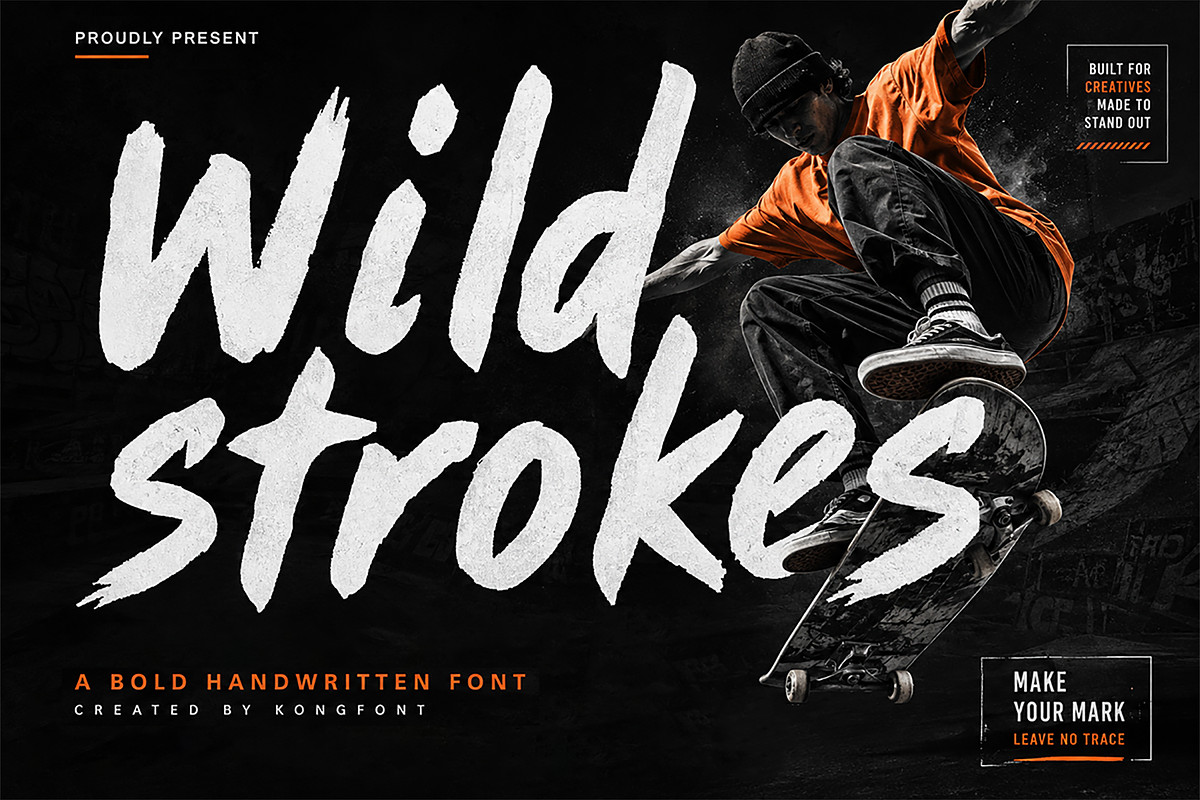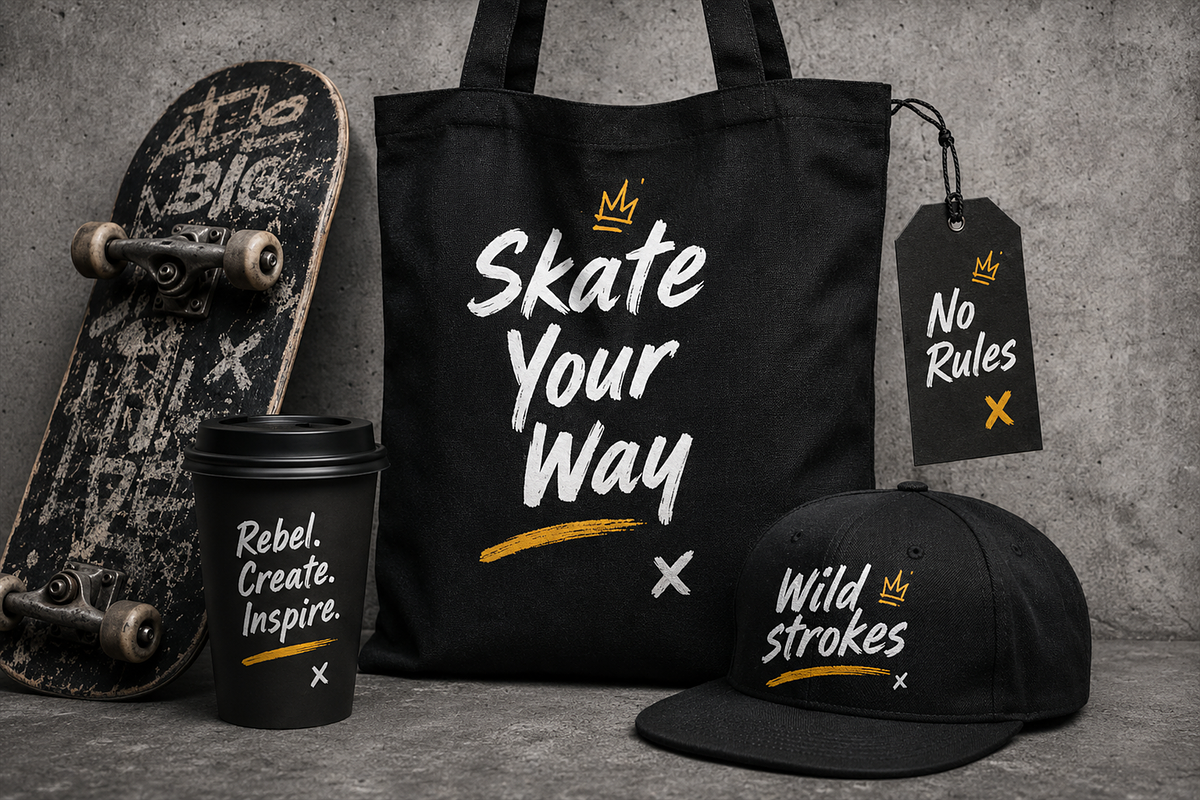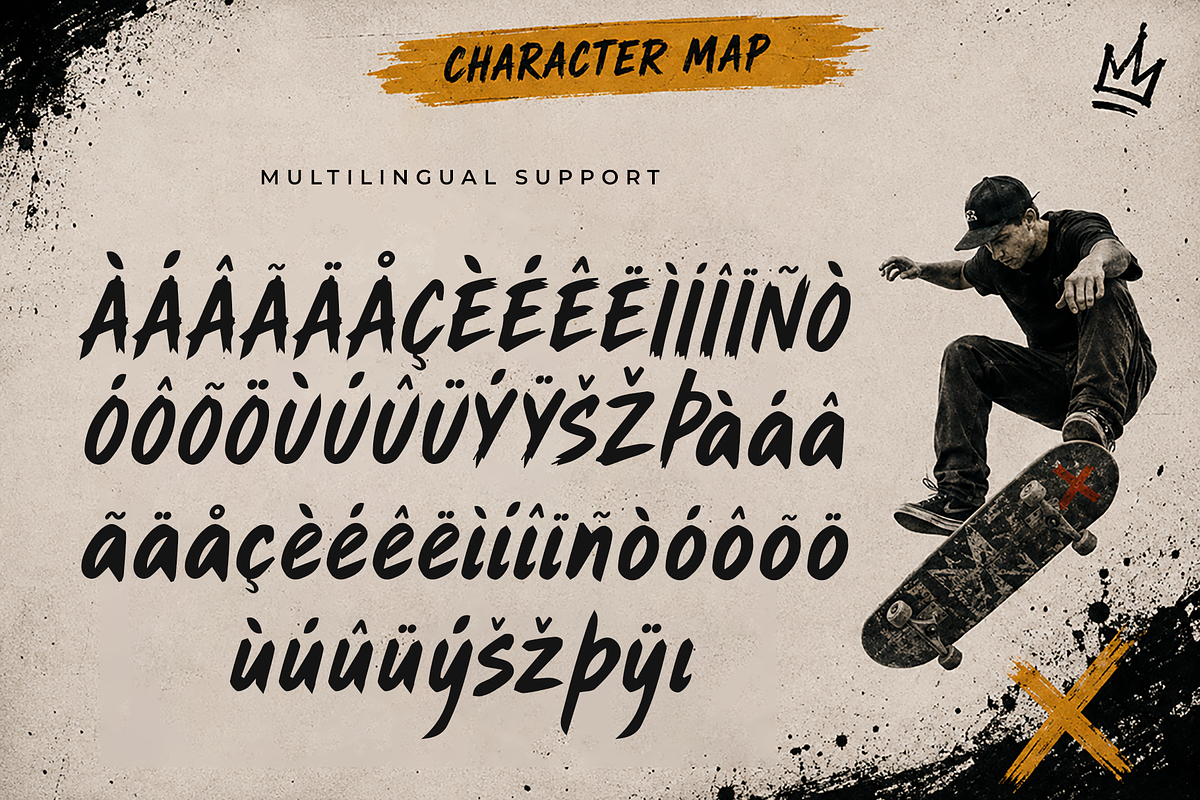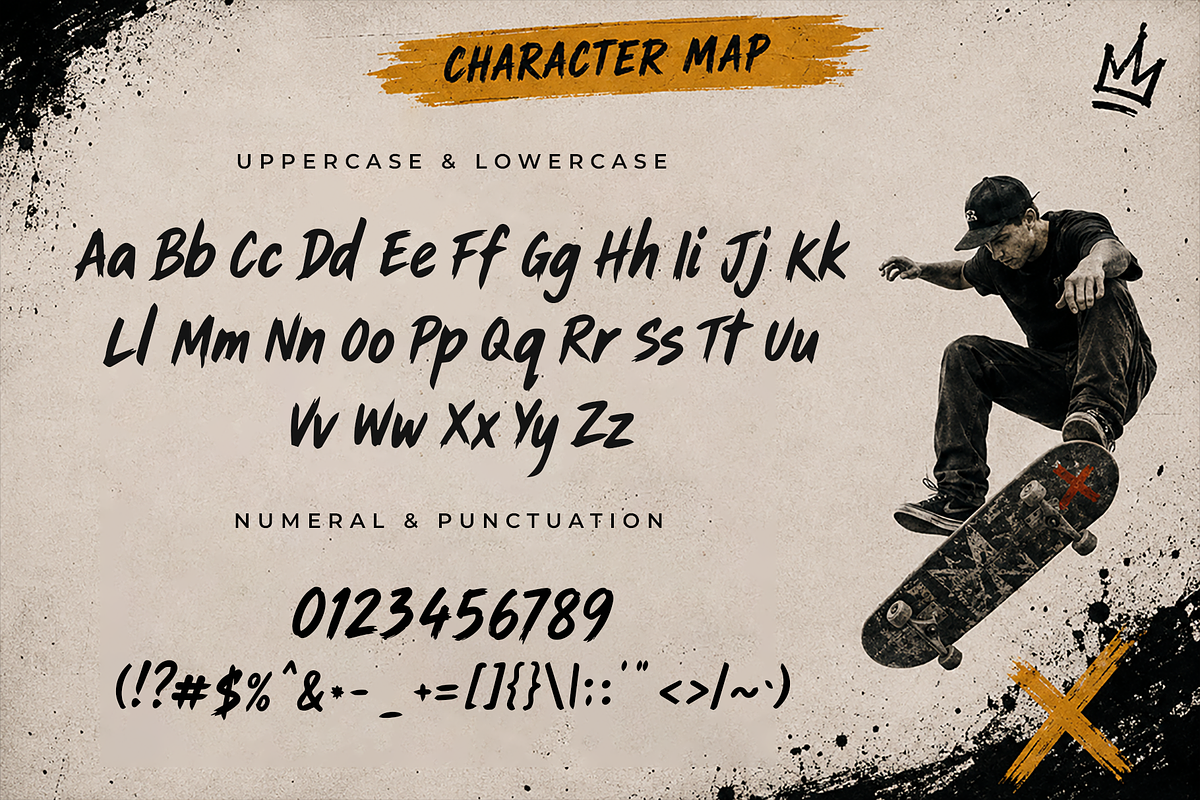
Wild Strokes-Bold Handwritten Brush
Wild Strokes - Bold Handwritten Brush Font
Meet "Wild Strokes," a bold handwritten brush font created with rough edges, natural movement, and an unapologetic street-inspired personality. Its energetic strokes and handcrafted texture give every word a powerful sense of motion, making it perfect for designs that need to feel expressive, rebellious, and authentic.
Inspired by skate culture, graffiti, streetwear, action sports, and urban creativity, Wild Strokes delivers the spontaneous character of hand-painted lettering while maintaining strong visual impact. Its irregular brush shapes make headlines and logos feel dynamic, personal, and full of attitude.
Wild Strokes is a versatile brush display typeface made for designers who want to combine raw creativity, urban attitude, handcrafted texture, and high energy typography across both digital and printed projects.